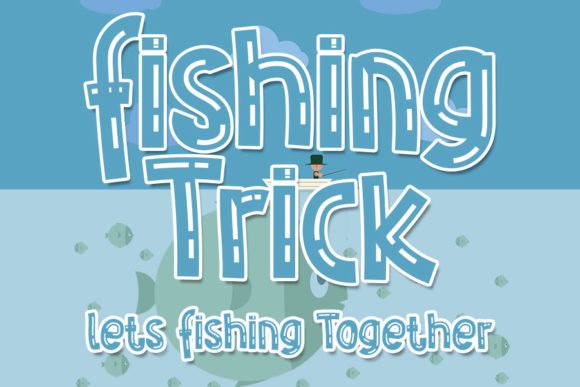
Reeling in the Perfect Font
Have you ever been strolling along the beach, feeling the warm sun on your skin and the gentle ocean breeze in your hair, when suddenly you stumble upon the perfect wave? That moment of excitement and serendipity is exactly what designers experience when they come across the perfect font. For me, that moment came when I discovered the Fishing Trick Font.
This fun and joyful display font is the ultimate catch for designers looking to add a playful touch to their projects. Whether you’re creating logos, wedding invitations, or signage, Fishing Trick Font is the perfect addition to make your designs stand out. Its versatility and charm make it a valuable asset for any designer looking to add a little whimsy to their work.
Fishing Trick Font Key Features
- Font Family: Fishing Trick Font is a unique, hand-drawn font designed to resemble fishing nets and other nautical elements.
- Unique Characteristics: The font features intricate, hand-drawn designs that evoke the feeling of fishing nets, ropes, and other nautical elements, making it perfect for ocean-inspired projects.
- Usage: Suitable for a wide range of design applications, including logos, signage, packaging, and branding materials, particularly in the nautical, fishing, and outdoor industries.
Fishing Trick Font Review
Overall, I think the Fishing Trick Font has some great qualities, but it also has its limitations.
- The font’s playful and whimsical feel is perfect for outdoor or adventure-themed designs.
- The unique combination of curves and lines gives the font a distinctive and memorable look.
- The font’s versatility allows it to be used for a wide range of applications, from logos to signage to web design.
- The font may be too playful for more serious or professional designs, which could detract from the overall message.
- The font’s irregularities may make it difficult to read at small sizes or in certain contexts.
- The font’s limited character set may make it less suitable for longer blocks of text.
Overall, I think the Fishing Trick Font is a great choice for designers looking to add some personality and whimsy to their designs. However, it may not be the best fit for every project or audience. With careful consideration and use, it can be a great addition to any designer’s toolkit.
Tips: Use Fishing Trick Font for headings or titles to add a playful touch to your design. Experiment with different font sizes and colors to create a visually appealing effect.
Tips: Use Fishing Trick Font to add a unique touch to your vector graphics or illustrations. Combine it with other fonts to create a visually interesting effect.
Tips: Use Fishing Trick Font to add a creative touch to your presentations or documents. Experiment with different font sizes and colors to create a visually appealing effect.
Fishing Trick Font is perfect for:
1. Creating playful and eye-catching headings or titles.
2. Adding a unique touch to vector graphics or illustrations.
3. Creating visually interesting presentations or documents.
4. Adding a creative twist to social media graphics or advertising materials.
Alternatives to Fishing Trick Font
Great Vibes is a playful, handwritten font perfect for adding a casual touch to your designs. It’s ideal for use in social media graphics, advertisements, and other marketing materials where you want to convey a relaxed, friendly tone.
Compared to Fishing Trick Font, Great Vibes has a more rounded and fluid feel, making it suitable for a wider range of applications. While Fishing Trick Font has a more rugged, hand-painted look, Great Vibes is more polished and refined.